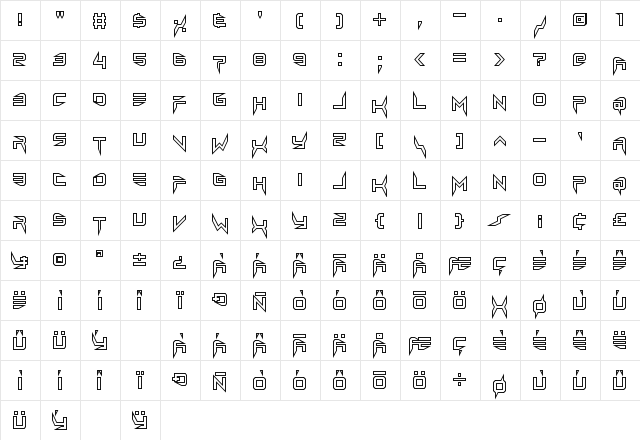
Lethal Injector Outline Regular
| Designer | Jγon Garnica |
Design Context for Lethal Injector Outline Typeface
Lethal Injector Outline brings ornamental detail and strong personality to headlines and identities, where visual impact matters more than quiet functionality.
Font Pairing: Pair with a clean neutral sans-serif for body copy to let Lethal Injector Outline's character lead without overwhelming the composition.
Pro Tip: Use Lethal Injector Outline exclusively at display sizes — it was designed to be seen, not read at length. Let a neutral companion handle body copy.